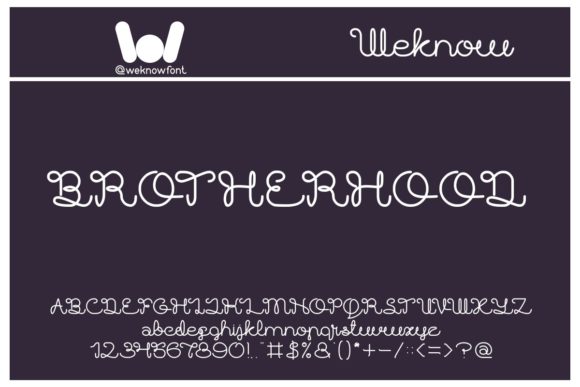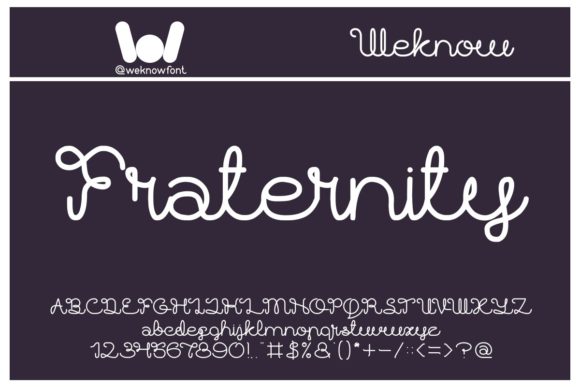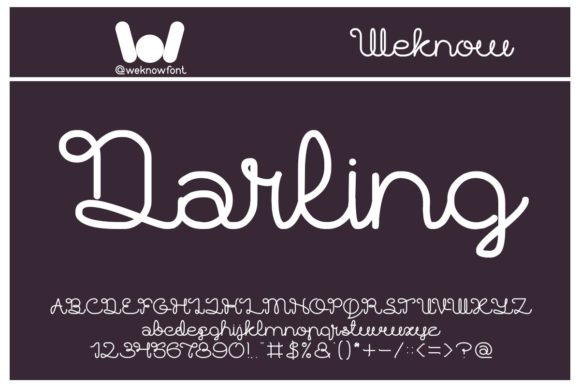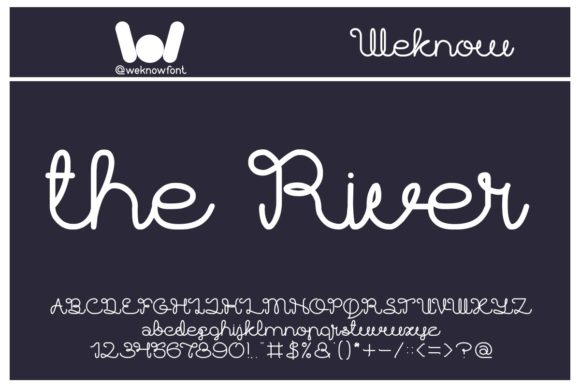
Brother Army Font
About Brother Army Font
“Brother Army” is a sophisticated and delicate handwritten font, characterized by its sweet and graceful swashes. This unique style is designed to captivate and inspire, making it an excellent choice for a variety of creative applications. From letterheads and titles to stationery, “Brother Army” can add a touch of elegance to any project.
One of the standout features of this font is its PUA encoding. This means that all of the stunning glyphs and ligatures are easily accessible, allowing you to fully utilize the font’s potential. Whether you’re designing a logo or crafting an invitation, “Brother Army” offers a wealth of possibilities.
In the world of typography, “Brother Army” stands out as a font that combines beauty and functionality. Its handwritten style exudes charm and elegance, while its PUA encoding ensures ease of use. With its sweet swashes and delicate design, “Brother Army” is sure to appeal to those with a keen eye for detail.
Whether you’re a professional designer or a hobbyist, “Brother Army” is a versatile font that can enhance your projects. Its unique style and easy accessibility make it a joy to work with, and its wide range of applications means it can suit almost any project. From crafting letterheads to designing stationery, “Brother Army” is a font that can truly elevate your designs.